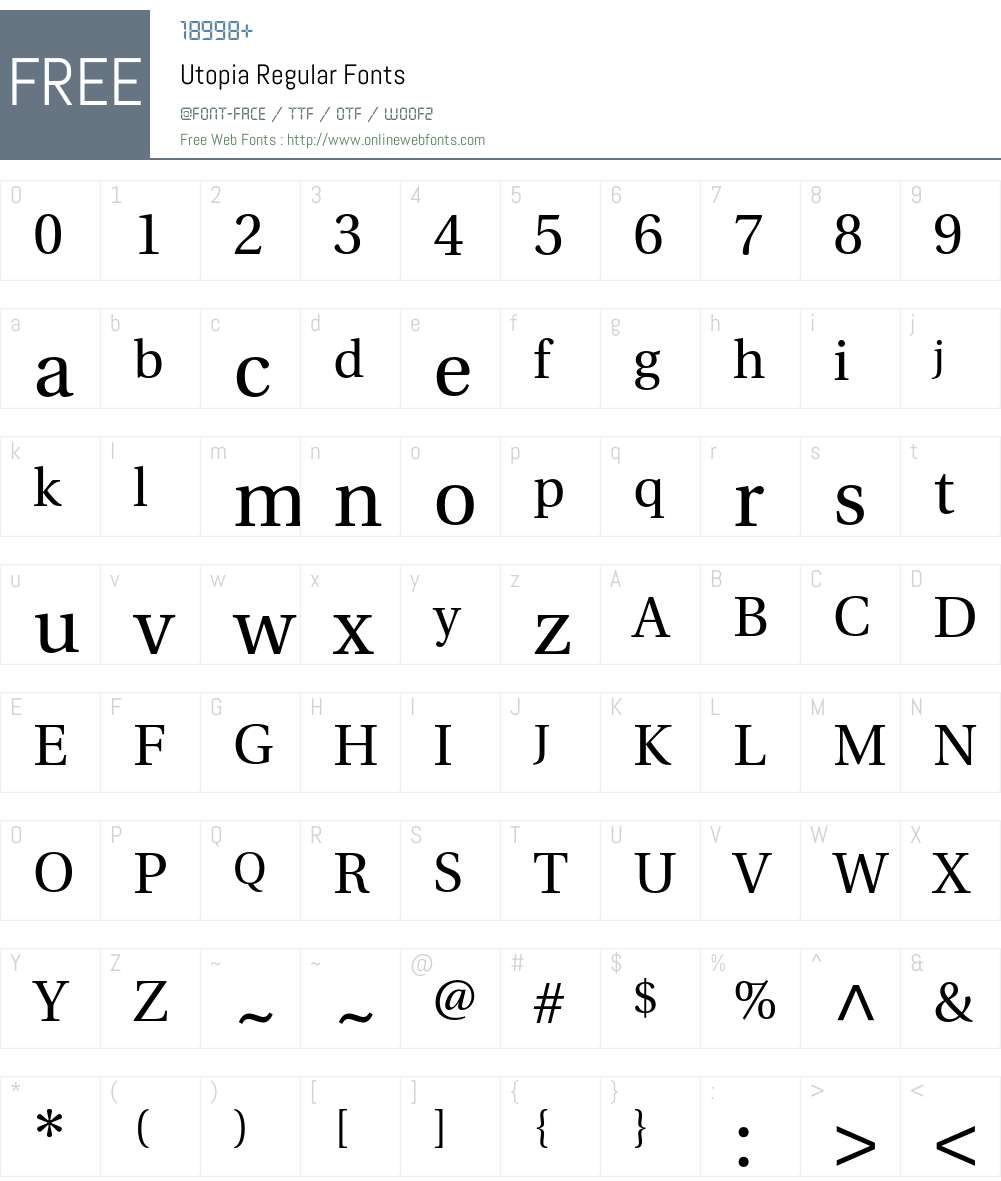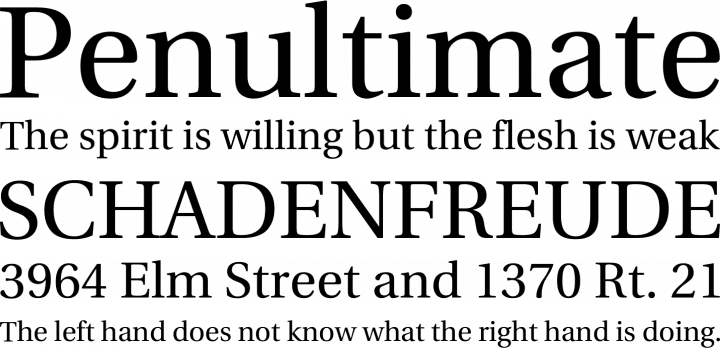
The adobe originals program started in 1989 as an in house type foundry at adobe brought together to create original typefaces of exemplary design quality technical.
Utopia font free download. Utopia bold viewed 8256 times so far. 008adbeutopiastd semiboldsubhutopia std semibold subheadotf 1. It combines the vertical stress and pronounced stroke contrast of eighteenth century transitional types like baskerville and walbaum with contemporary innovations in character shapes and stroke details.
Explore utopia designed by robert slimbach at adobe fonts. About this font family utopia is an adobe originals text face designed by robert slimbach in 1989.